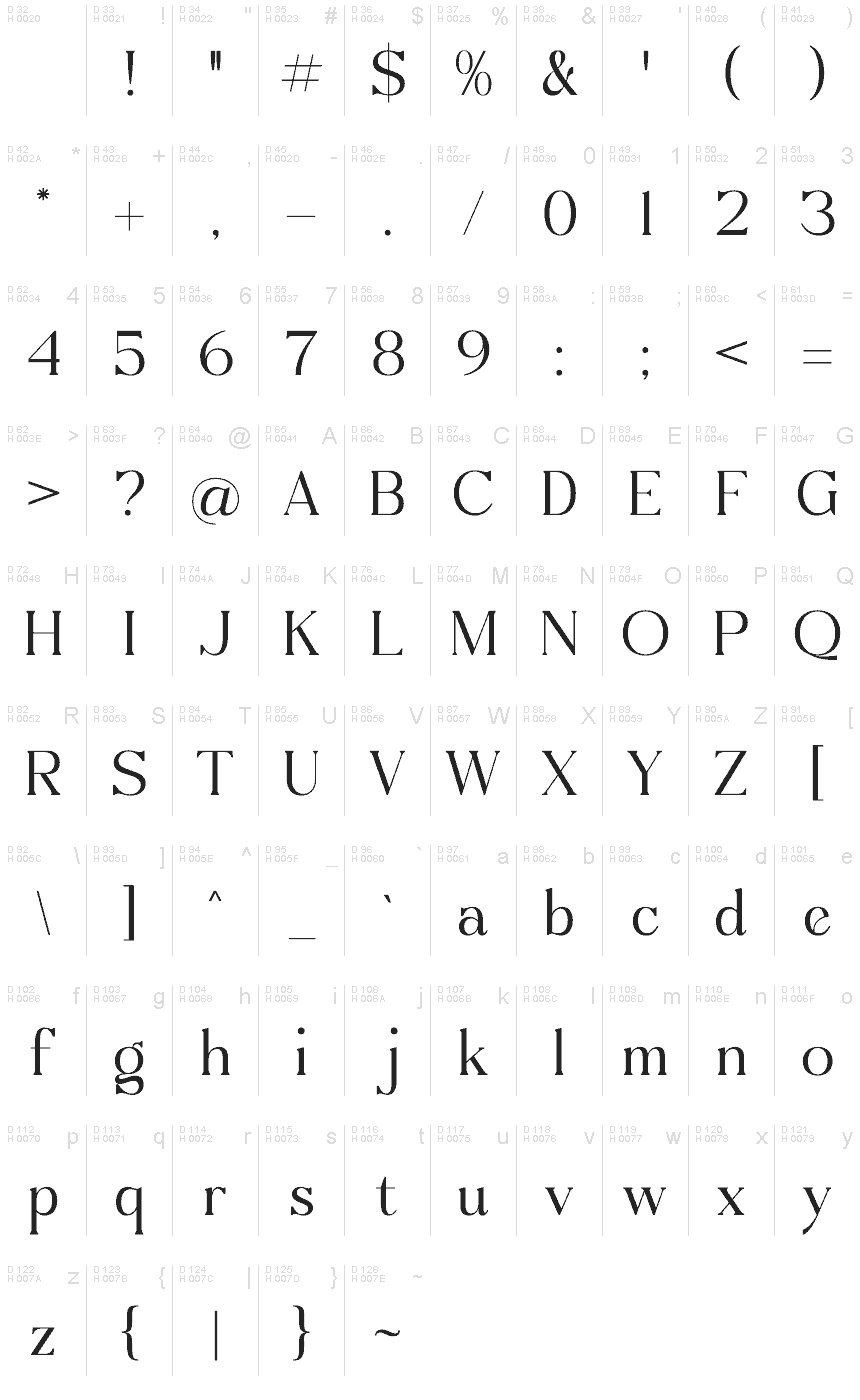
Chafuer
Chafuer font by Storytype Studio is a sophisticated display typeface with a classic serif style. The elegant and fancy design makes it suitable for projects that need refined aesthetics and luxurious feel. Its delicate features like the high contrast of strokes and gorgeous serifs add further to its unique visual identity. This awesome font is loose, stylish, and readable which makes it well-suited for various display projects.
The Chafuer free serif font will look splendid in fashion magazines, product packaging designs, apparel branding, business cards, posters, banners, storybooks covers, advertising designs, websites headers or body text. Choose your favorite size of headline to incorporate this beautiful typeface into any print or web-based project!